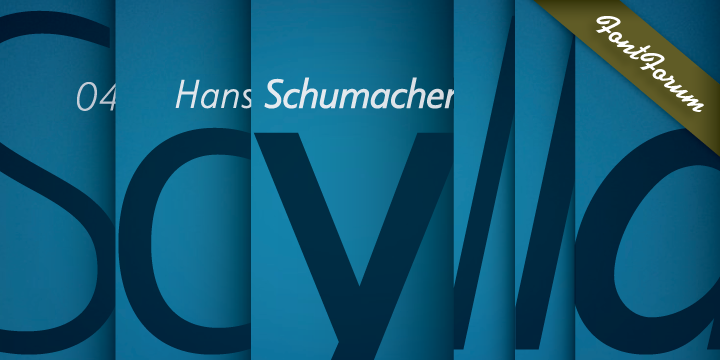
Scylla Font Free Download provides designers with mythological typography that combines ancient Greek aesthetics with contemporary functionality for epic design applications. This commercial font requires purchase for business use, but you can download it for free for testing purposes to evaluate its distinctive classical characteristics in your creative projects.
Scylla Font demonstrates remarkable versatility across numerous design applications including mythology-themed entertainment, Greek restaurant branding, classical education materials, ancient history publications, museum exhibition communications, theatrical productions, epic gaming interfaces, and cultural heritage presentations. Its legendary character makes it particularly effective for projects requiring classical authority while maintaining contemporary readability, ensuring your designs convey mythological grandeur and ancient wisdom across both digital platforms and scholarly print materials.
What makes Scylla Font truly exciting is its masterful interpretation of ancient Greek typography traditions enhanced with modern design precision that creates compelling mythological communications. The font features carefully crafted letterforms that incorporate classical proportions and legendary elements reminiscent of ancient Greek inscriptions and mythological manuscripts while maintaining excellent readability and professional application. Its distinctive character construction draws inspiration from Greek mythology and classical antiquity, creating text that feels both historically grounded and contemporarily relevant. The font's optimized spacing and epic character relationships ensure superior performance across various classical applications while preserving the characteristic power that defines its mythological personality.
Scylla Font offers a comprehensive type family designed to support diverse classical and mythological design requirements. The family typically includes light, regular, medium, bold, and heavy weights, along with corresponding italic variations that provide complete flexibility for epic typography compositions. Many versions feature extended character sets with mythological symbols, classical ornaments, and specialized glyphs that enhance authentic ancient Greek aesthetic applications.
The Scylla Font Free Download represents exceptional value for designers working on classical and mythology-focused projects across multiple sectors. Whether developing educational institution branding, creating mythological entertainment materials, designing museum communications, or producing classical studies content, this font delivers consistent authenticity and memorable epic appeal. Its mythological characteristics make it particularly effective for industries including classical education, museums, entertainment media, and cultural institutions sectors seeking to communicate ancient wisdom and mythological power.
For maximum effectiveness, Scylla Font combines excellently with classical design elements and ancient color schemes that reinforce its mythological message. Its legendary presence excels in headline applications while maintaining exceptional performance in educational documentation contexts. The font's classical sophistication and mythological authenticity make it an essential tool for creating epic communications that resonate with audiences appreciating ancient Greek culture and mythological storytelling.